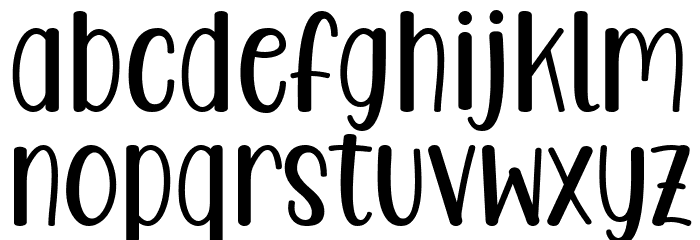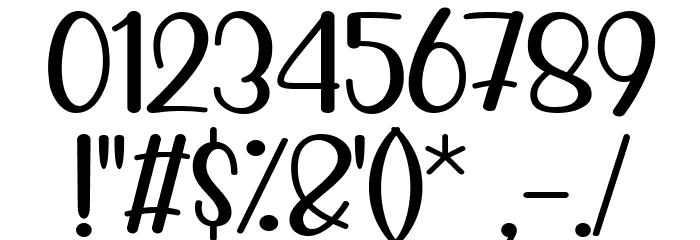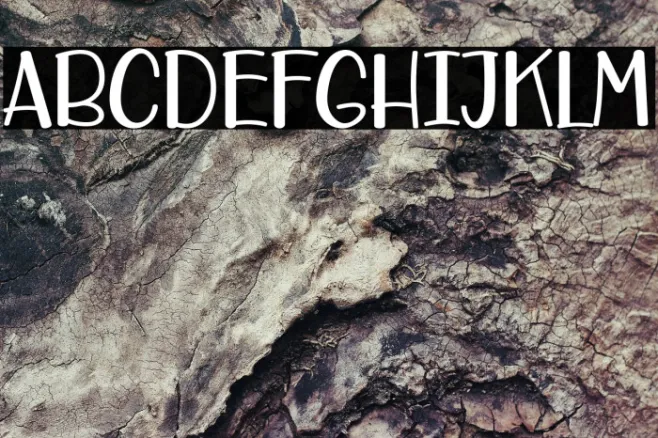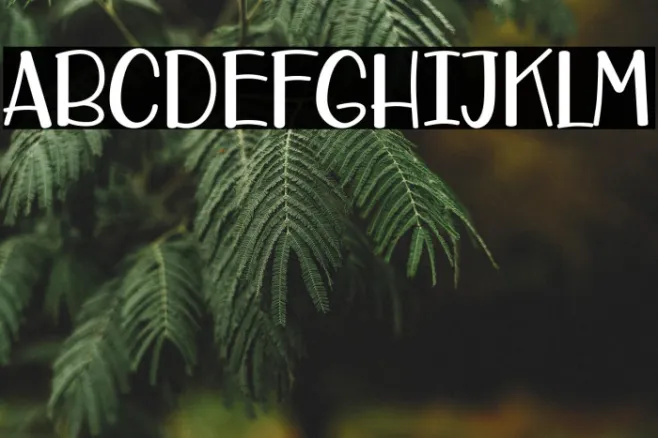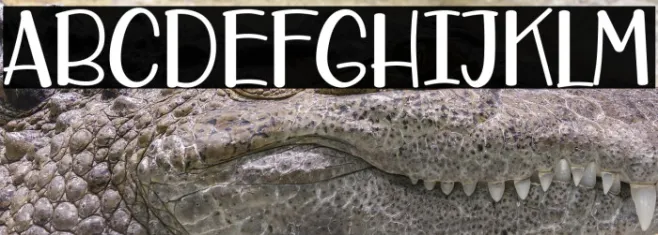
Care Around Font
This playful and whimsical font features a hand-drawn style with a friendly and approachable appearance. The letters are slightly irregular, adding a touch of charm and personality. The uppercase characters are tall and narrow, while the lowercase letters have a more rounded and softer look. The numbers and special characters maintain the same playful aesthetic, making the font versatile for various creative projects. The strokes are consistent in width, providing a uniform look across all characters. This font is ideal for projects that require a fun and informal touch.
A playful, hand-drawn font with a whimsical and friendly appearance.
- Font: Care Around
- Proposed Projects: Ideal for children's books, greeting cards, playful branding, and social media graphics.
- Category: Handwritten
- Overall Style: Playful
- Use Case: Headlines, Logos, Informal text